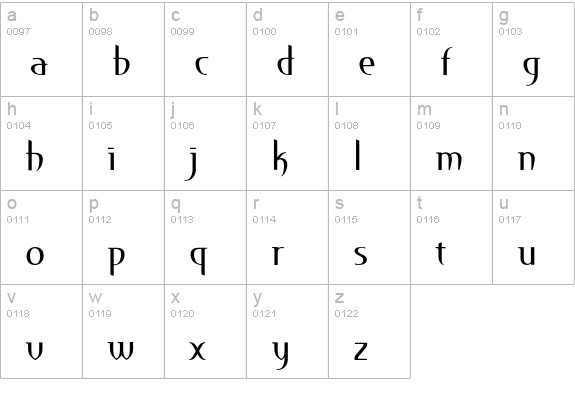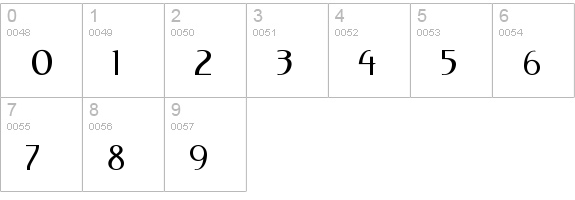
Perceval-Regular Font Details
Perceval-Regular is the standard, neutral variant in the Perceval typeface family \xE2\x80\x94 well suited to general body text, paragraphs, and standard typographic work.
Perceval-Regular is a versatile and elegant font that captivates with its timeless appeal. With its clean lines and balanced proportions, this font effortlessly combines sophistication with legibility, making it the perfect choice for a wide range of design projects. The Perceval-Regular font is imbued with a sense of classic elegance, making it ideal for creating refined and stylish designs. Whether you are designing a logo, crafting a professional business card, or creating stunning typography for your website, this font will elevate your work to new levels of sophistication. One remarkable aspect of Perceval-Regular is its versatility. It seamlessly adapts to various design styles, effortlessly complementing both modern and traditional aesthetics. This font's ability to effortlessly blend into any design concept ensures that it will remain a timeless choice for years to come. Furthermore, it is worth noting that Perceval-Regular is freely available to download at FontsMarket.com. This means that you can easily access and utilize this font for your design projects without any financial constraints. The accessibility of this font makes it an excellent option for both professional designers and amateur enthusiasts looking to enhance their creative endeavors. In conclusion, Perceval-Regular is a stunning font that exudes elegance and sophistication. Its clean lines, balanced proportions, and timeless appeal make it a versatile choice for a wide range of design projects. With its availability as a free download at FontsMarket.com, there is no reason to hesitate in adding this font to your collection.